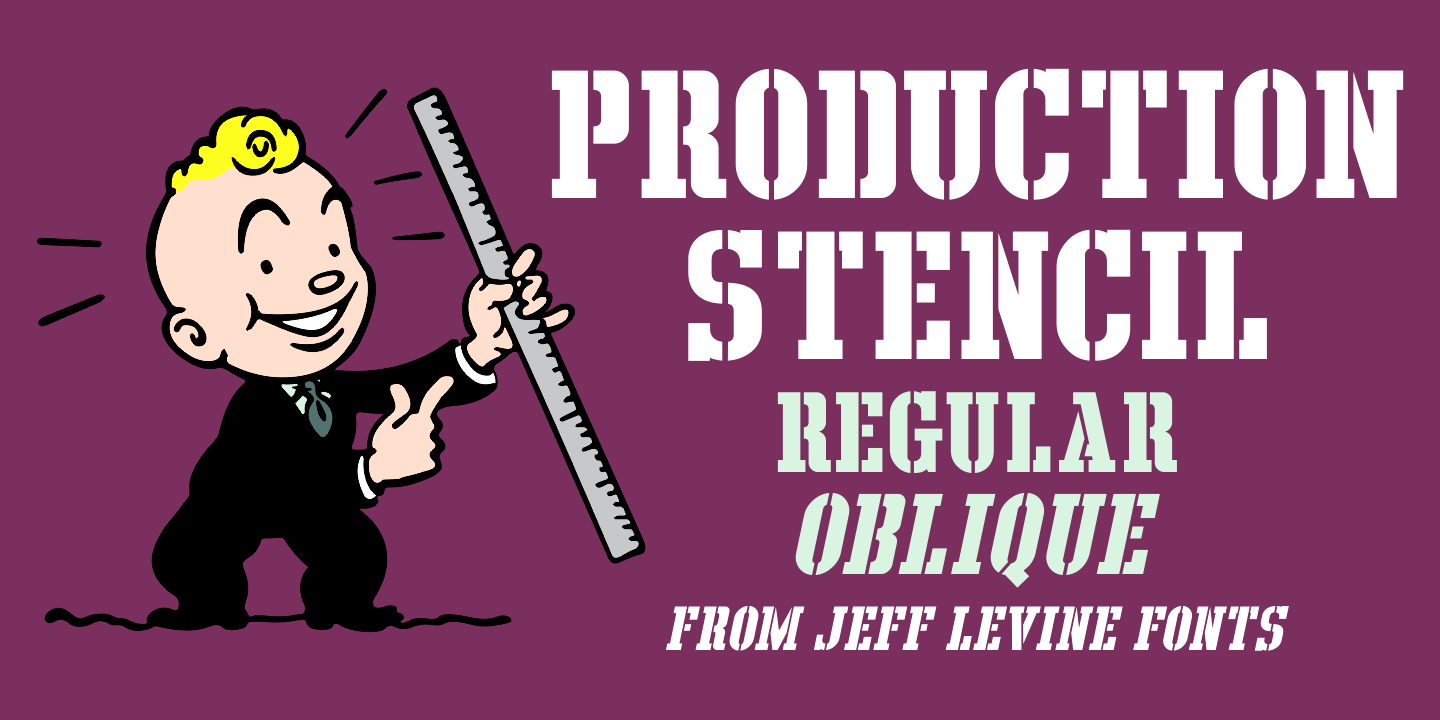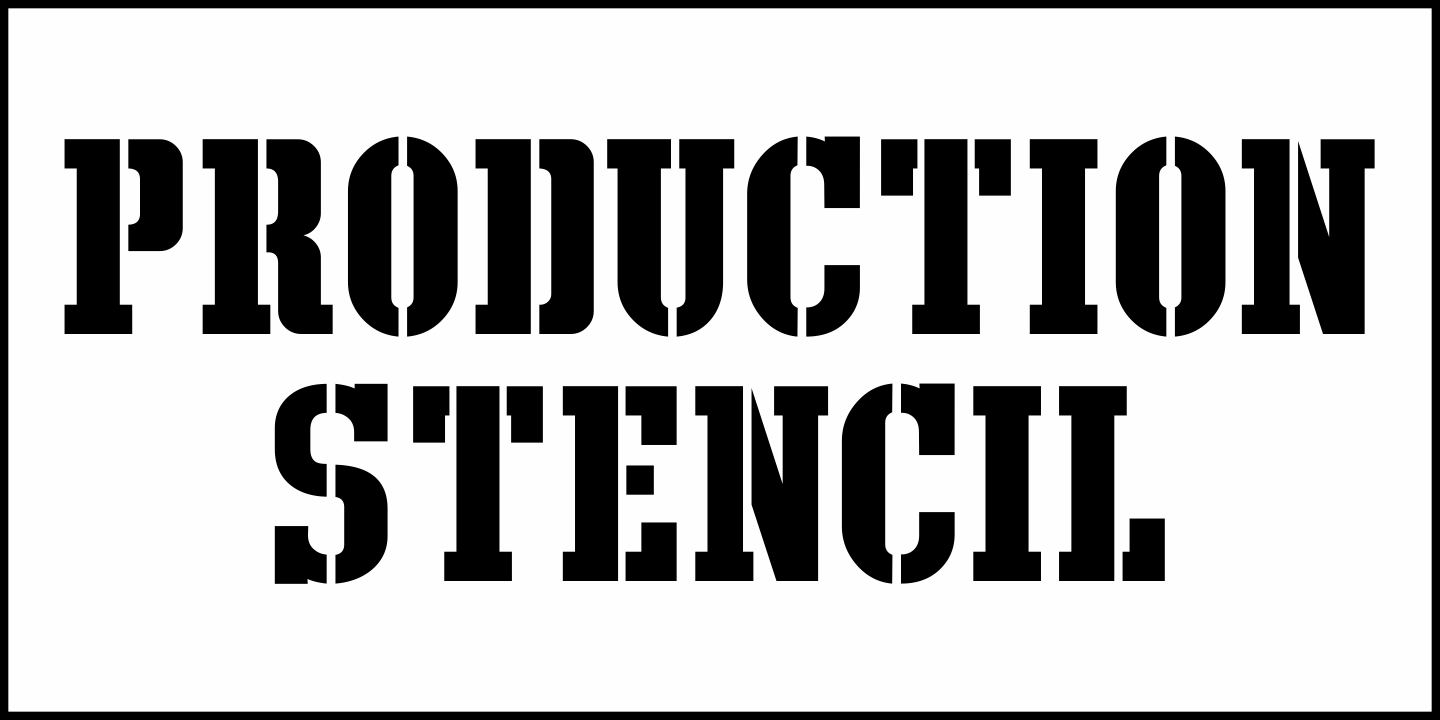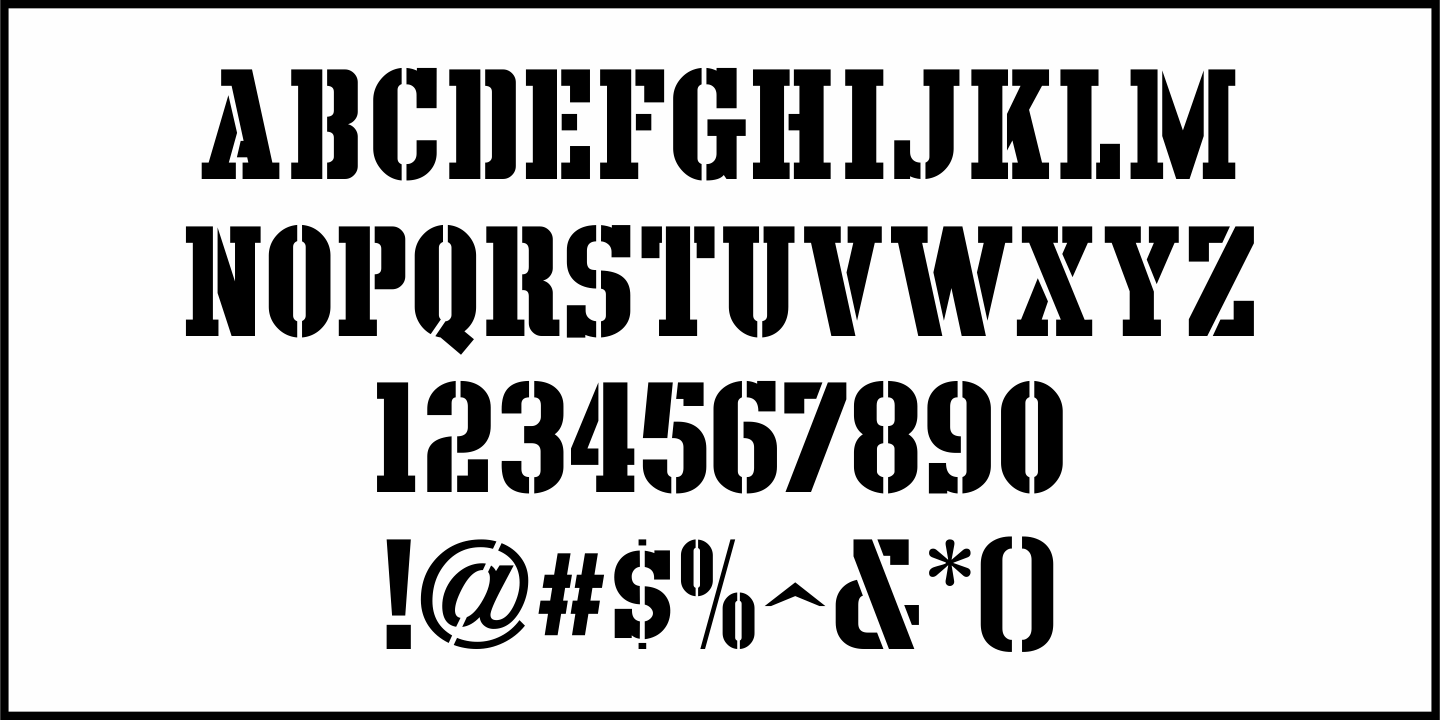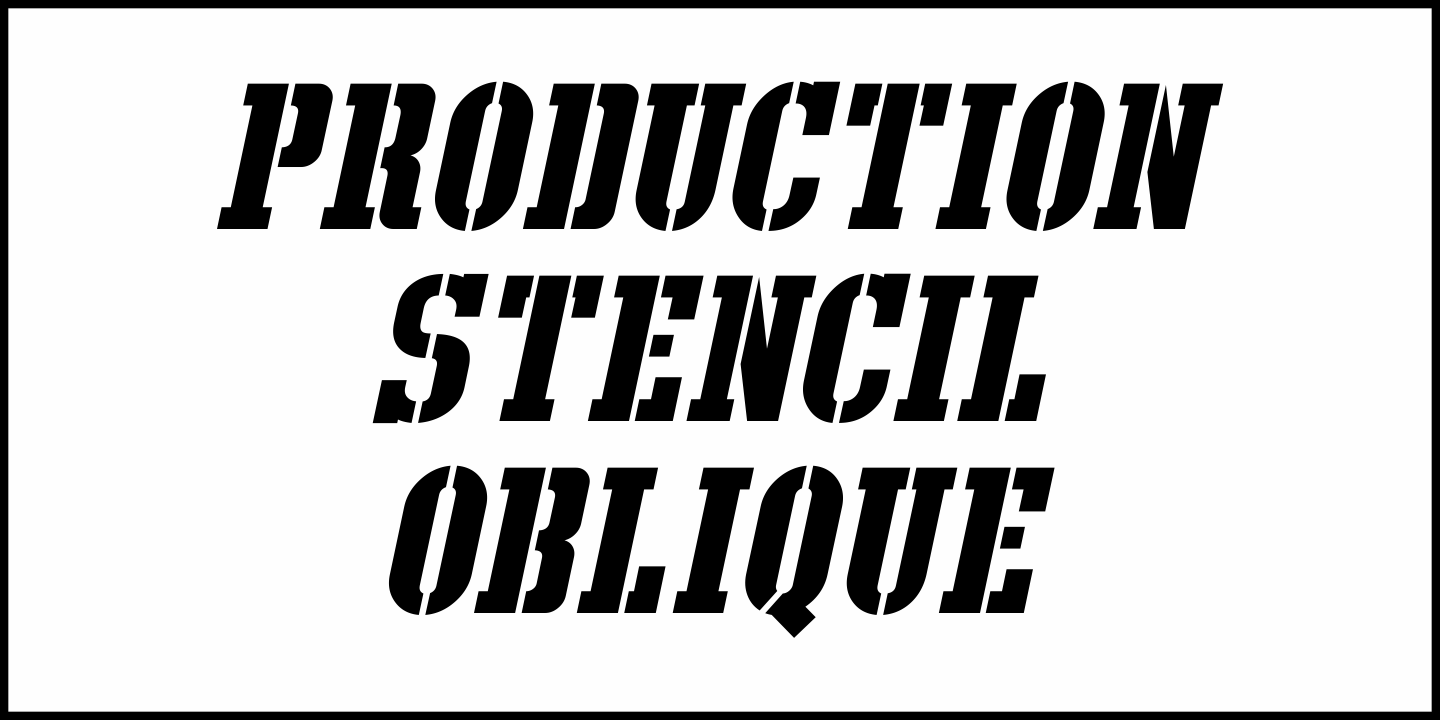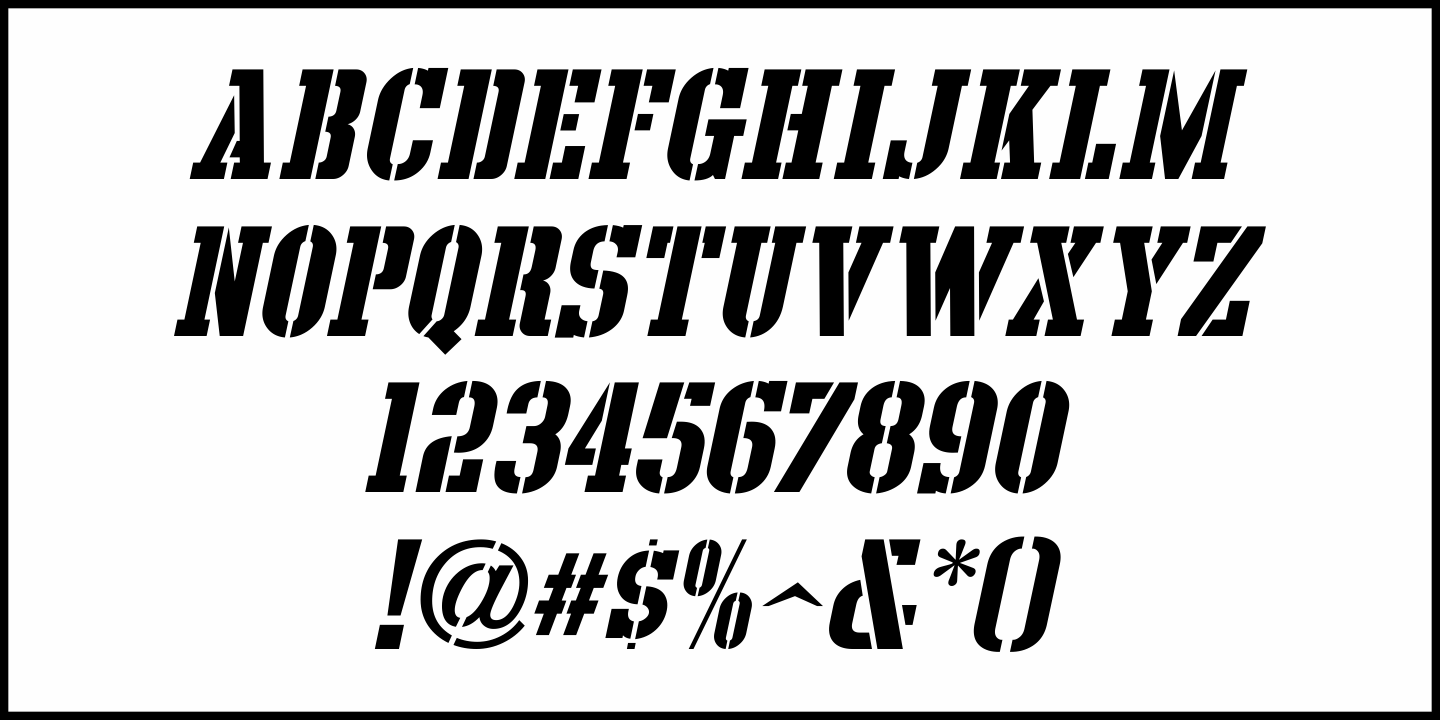
Production Stencil
In the 1956-57 edition of Broadcasting Telecasting, various ads utilized a bold stencil font to promote various TV programs.
This condensed slab serif stencil design inspired Production Stencil JNL, which is available in both regular and oblique versions.
Production Stencil JNL Oblique by Jeff Levine Fonts